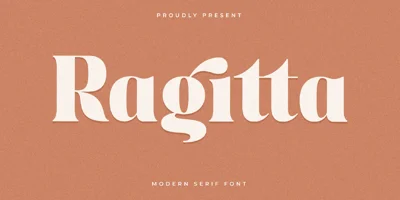
Ragitta Font
Ragitta Font is ideal for upscale restaurant menus, gourmet food packaging, wine bar branding, culinary school logos, chef portfolio websites, fine dining establishments, and luxury catering services. This sophisticated typeface brings Mediterranean elegance and culinary artistry to any design project celebrating gastronomic excellence and refined taste experiences.
What makes Ragitta Font exciting is its exquisite blend of Italian culinary heritage and contemporary elegance that captures the passion and artistry of fine dining. The font features gracefully flowing letterforms with subtle flourishes and sophisticated curves that evoke the romance of Mediterranean cuisine and the precision of culinary craftsmanship. Its refined character creates an atmosphere of luxury and authenticity while maintaining excellent readability for menu applications.
The Ragitta Font family includes regular and bold weights with complementary script variations and culinary ornamental elements. The character set features gastronomic ligatures, wine symbols, chef-inspired alternates, and Mediterranean decorative accents that enhance the font's culinary appeal. Extended character support includes European diacritics and special symbols for international fine dining and gourmet food applications.
Whether you're designing restaurant brand identities, creating gourmet product packaging, or developing culinary marketing materials, Ragitta Font provides exceptional sophistication and versatility. This delectable typeface transforms ordinary text into appetizing visual experiences that celebrate culinary excellence while establishing memorable brand recognition in competitive hospitality and gourmet food marketplaces.